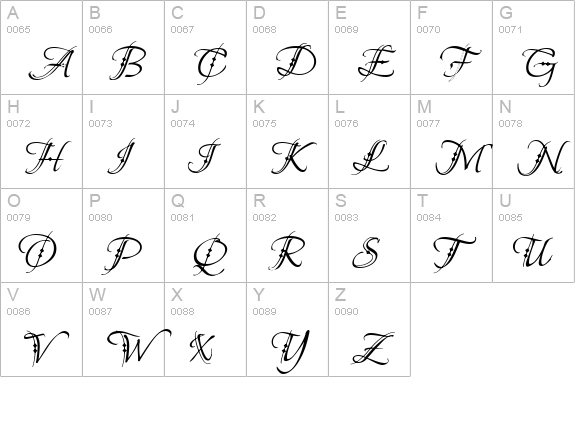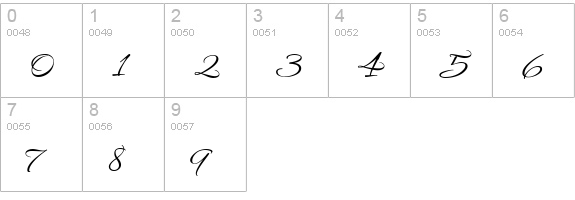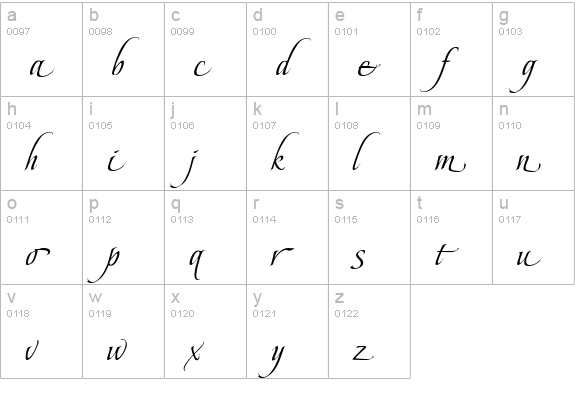
BeauRivageTwo Font Details
BeauRivageTwo is a stunning and elegant font that exudes sophistication and charm. With its delicate curves and intricate details, this font is perfect for adding a touch of luxury to any design project. Whether you are creating invitations, branding materials, or social media graphics, BeauRivageTwo is sure to make a statement. The best part? BeauRivageTwo is completely free to download at FontsMarket.com. That's right, you can add this beautiful font to your collection without spending a dime. Don't miss out on the opportunity to enhance your designs with the timeless beauty of BeauRivageTwo. Download it today and let your creativity shine!